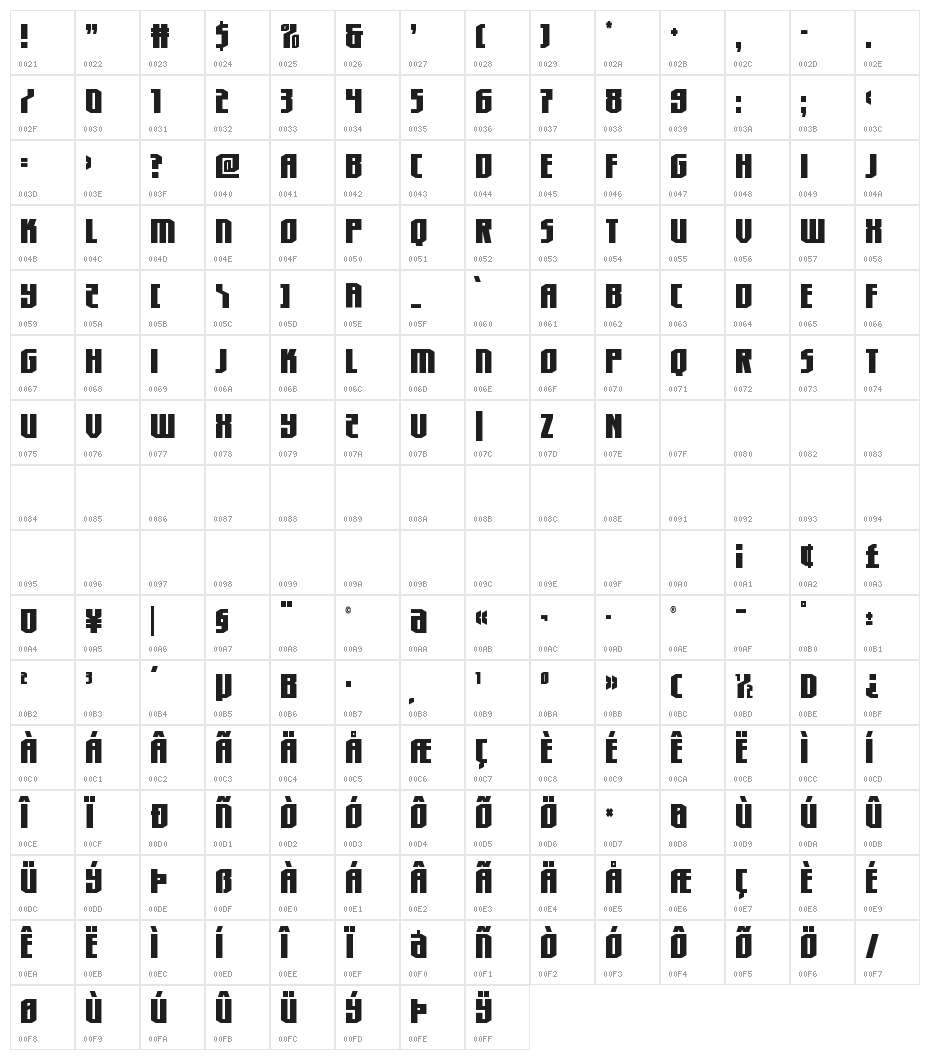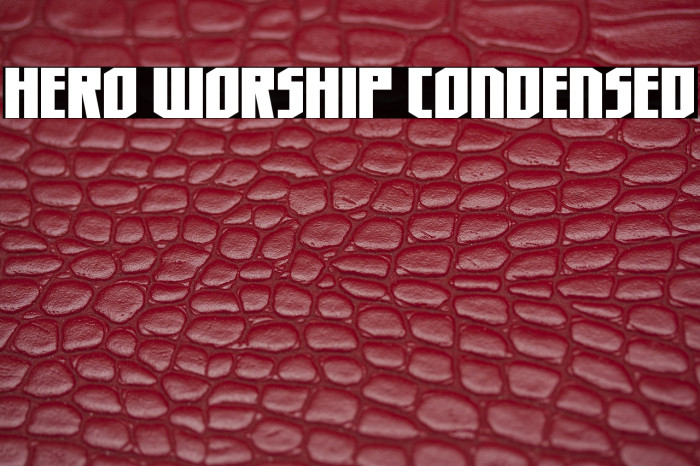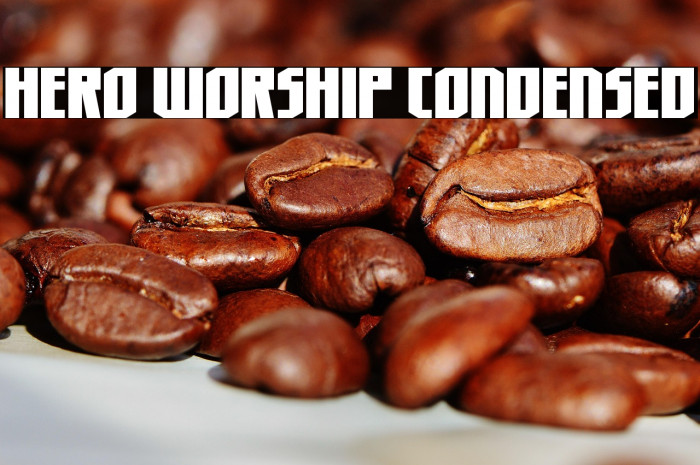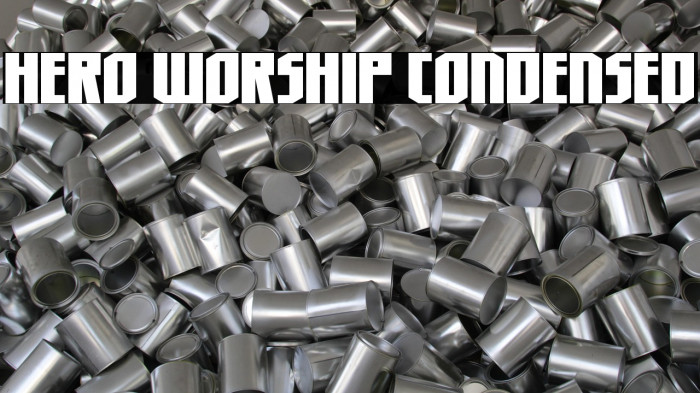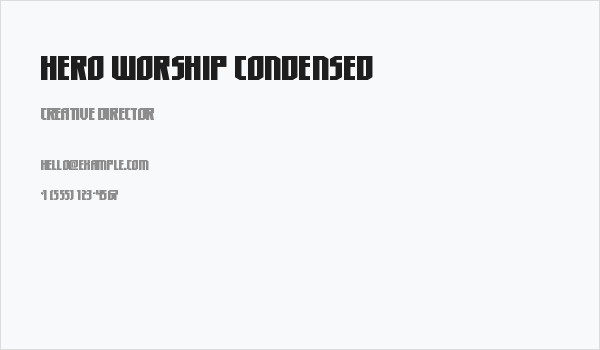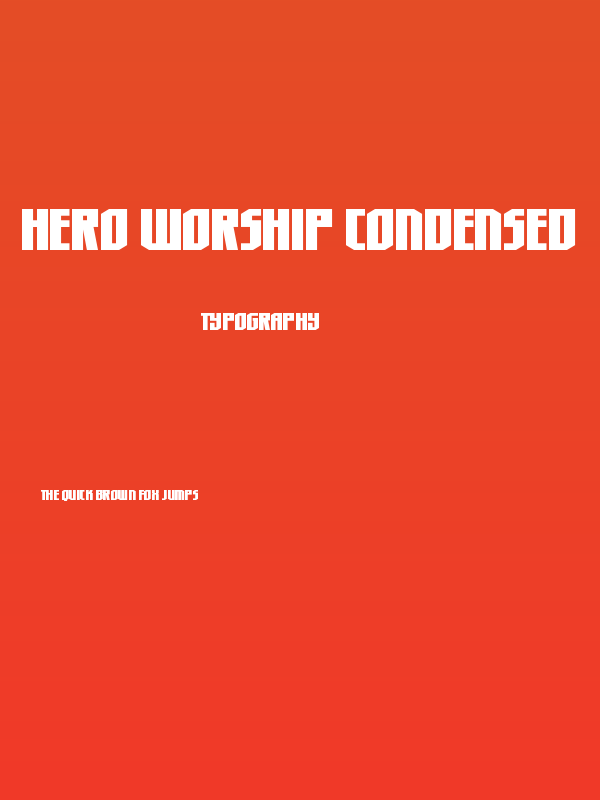
Hero Worship Condensed Font
Hero Worship Condensed Description
This font features a bold, geometric design with a condensed structure, making it ideal for impactful headlines and titles. The characters are constructed with sharp angles and straight lines, giving it a modern and assertive appearance. The uppercase and lowercase letters maintain a consistent height, contributing to its uniform look. The numerals and special characters follow the same stylistic approach, ensuring cohesion across all elements. Its strong visual presence makes it suitable for projects that require a commanding and authoritative typeface.